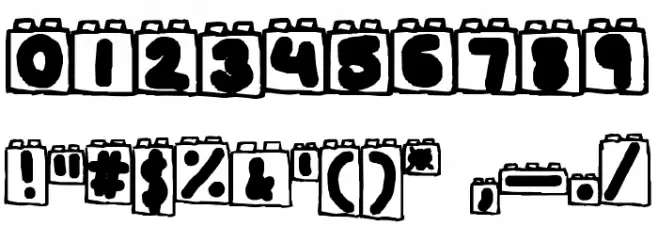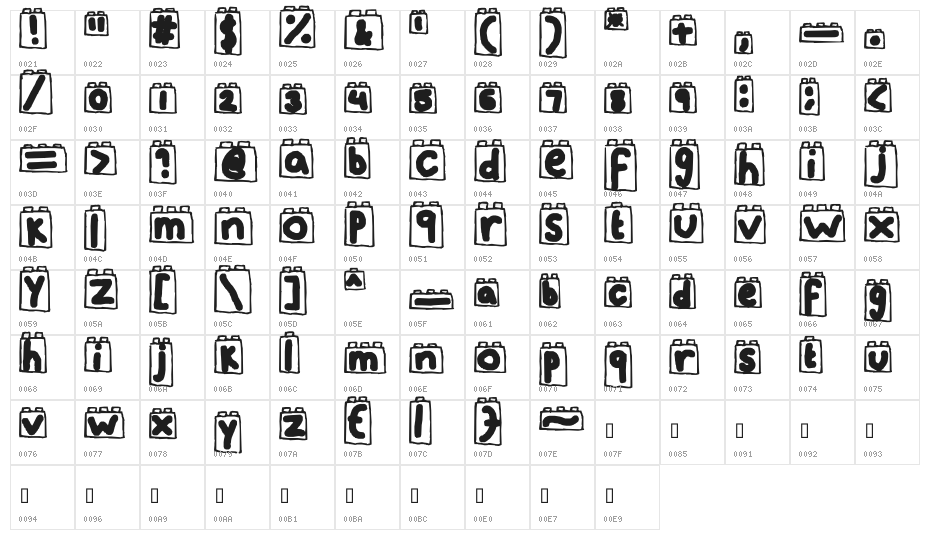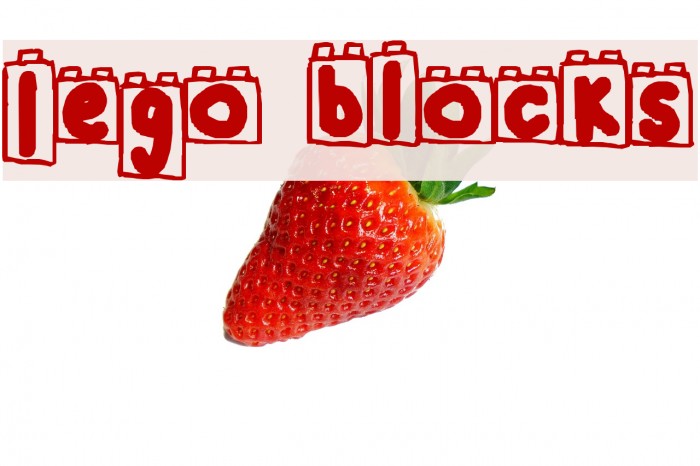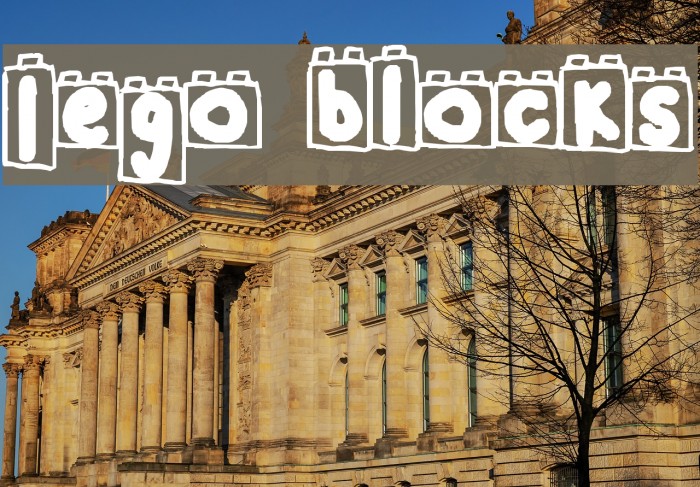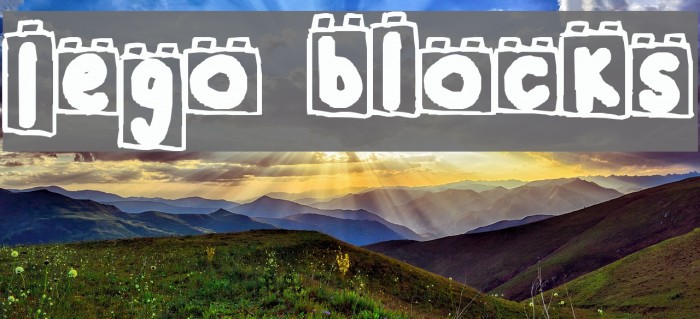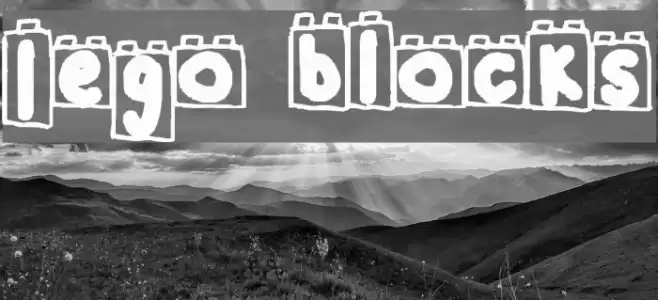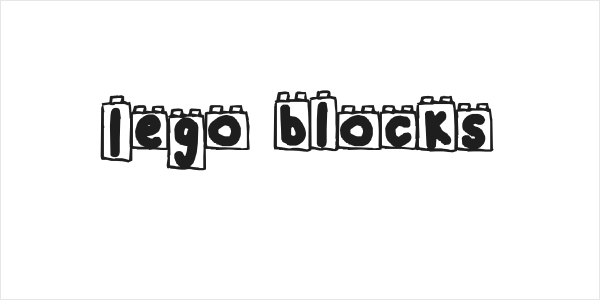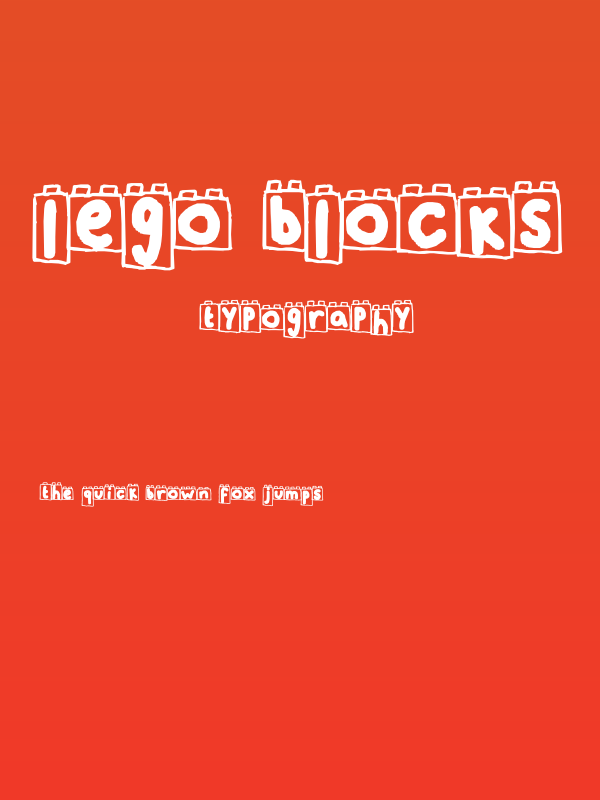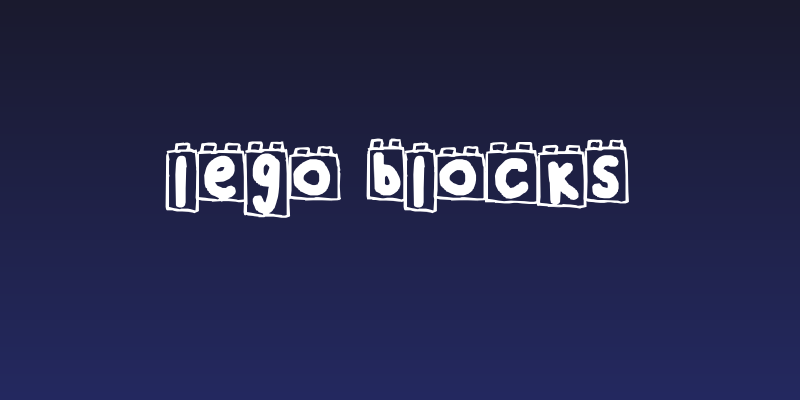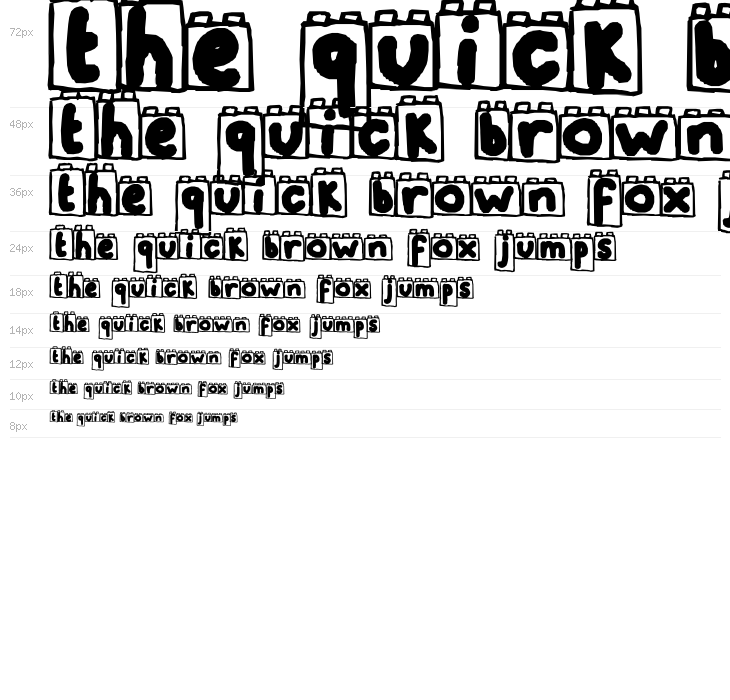
This playful and creative font is designed to resemble building blocks, with each character encapsulated in a block-like shape. The letters are bold and rounded, giving a friendly and approachable appearance. The font maintains a consistent height across all characters, with the top of each block featuring small, rounded protrusions reminiscent of toy bricks. This design choice adds a whimsical and nostalgic touch, making it ideal for projects aimed at children or those seeking a fun and informal vibe. The characters are evenly spaced, ensuring readability while maintaining the playful aesthetic. The font includes both uppercase and lowercase letters, numbers, and a variety of special characters, all adhering to the block motif.
Overall StylePlayful, Whimsical
Proposed ProjectsIdeal for children's books, toy packaging, playful branding, educational materials, and creative posters.